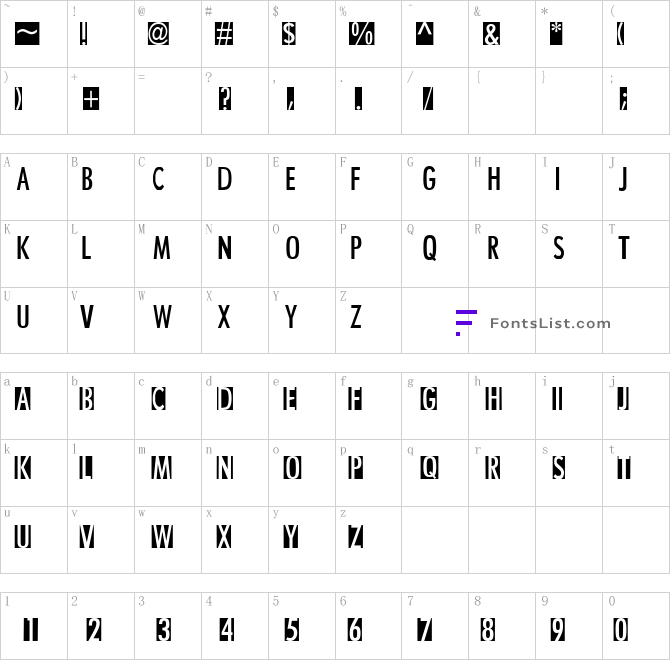
- Font Name:accused
accused.ttf is a very beautiful artistic font, accused.ttf is widely used in the design and printing of various books and pictures,accused.ttf has a strong visual impact,accused.ttf is a commonly used font in newspapers, magazines and books, and is used in posters, e-commerce Poster design, store design, logo design, font design and other fields.accused.